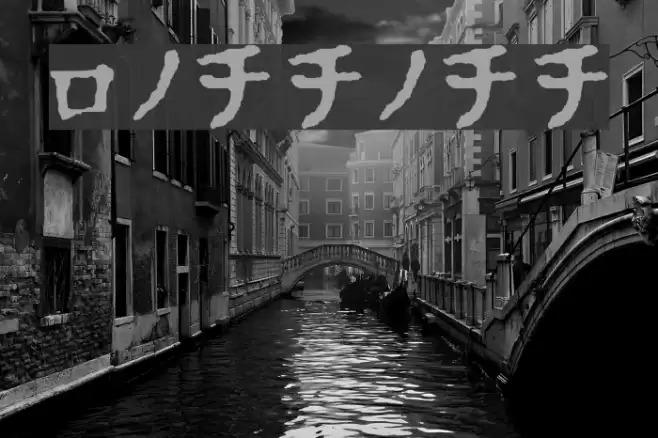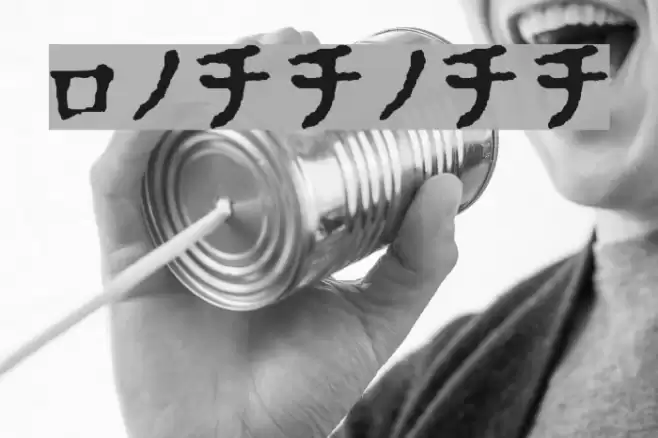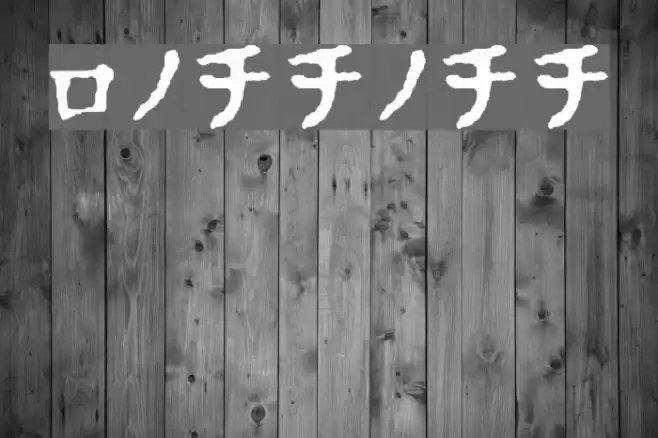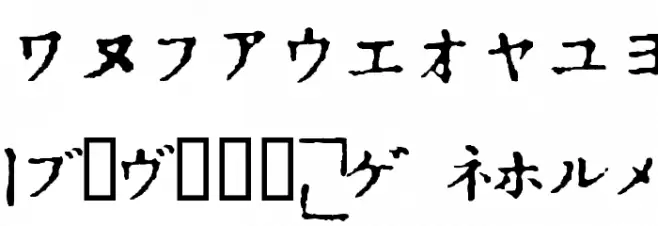
In_katakana Font
In_katakana Description
This font features a traditional Japanese katakana style with a brush-like appearance, giving it an artistic and cultural feel. The characters are bold and expressive, with varying stroke thickness that adds a dynamic quality to the text. The font maintains a balance between readability and artistic flair, making it suitable for designs that require a touch of authenticity and cultural depth. The strokes are slightly irregular, mimicking the natural flow of hand-drawn calligraphy, which adds to its charm and uniqueness. This font is ideal for projects that aim to evoke a sense of tradition and elegance, while still being modern and accessible.
A traditional, brush-style Japanese katakana font with expressive strokes from Dingbats fonts.
- Proposed Projects: Ideal for cultural event posters, Japanese-themed restaurant menus, and artistic book covers.
- Overall Style: Traditional, Artistic
- Use Case: Headlines, Logos, Cultural Designs